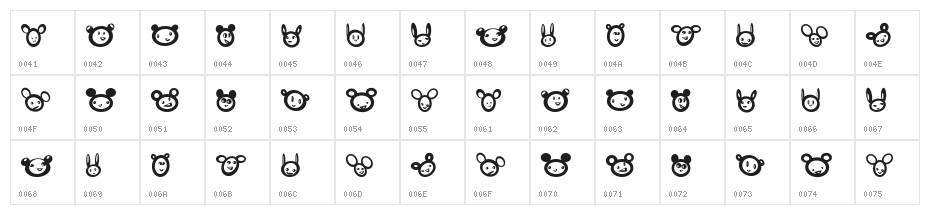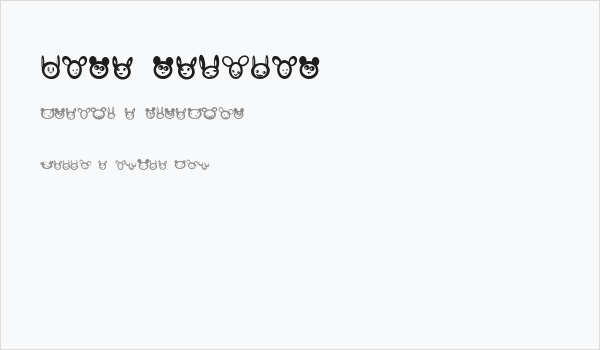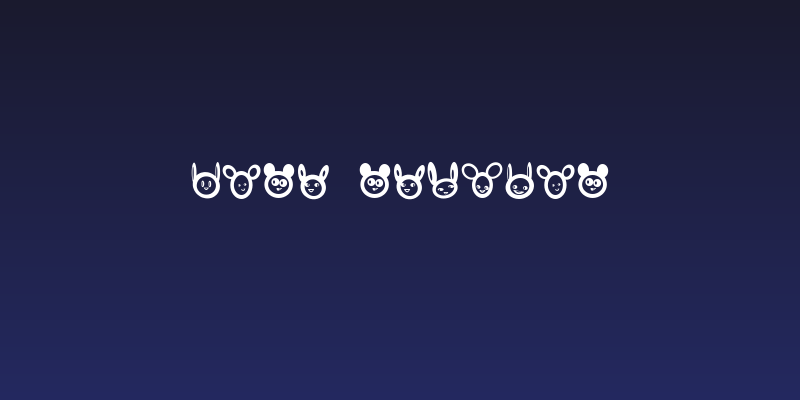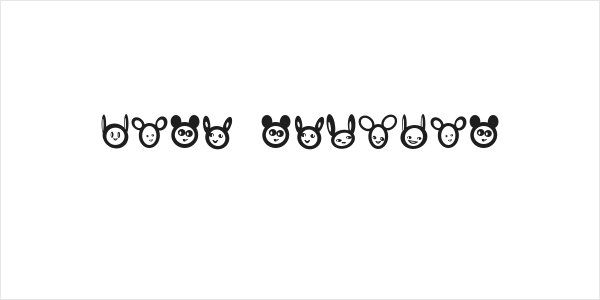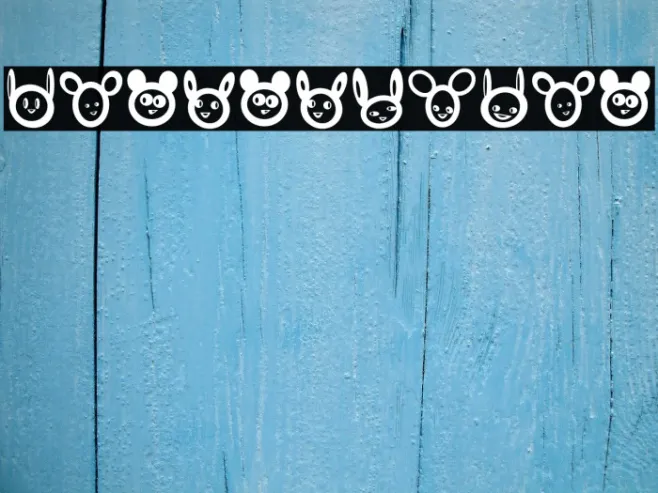
Fare Regular Font
Fare Regular Description
This is a playful and whimsical font featuring a series of cartoon-like animal faces. Each character is represented by a unique, rounded face with distinct expressions, giving the font a lively and animated feel. The characters are bold and have a consistent stroke width, making them stand out clearly. The design is highly decorative, with each face having its own personality, ranging from happy and cheerful to curious and mischievous. This font is perfect for projects that require a fun and engaging visual element, appealing to both children and adults. The overall style is modern and creative, with a focus on entertainment and lightheartedness.